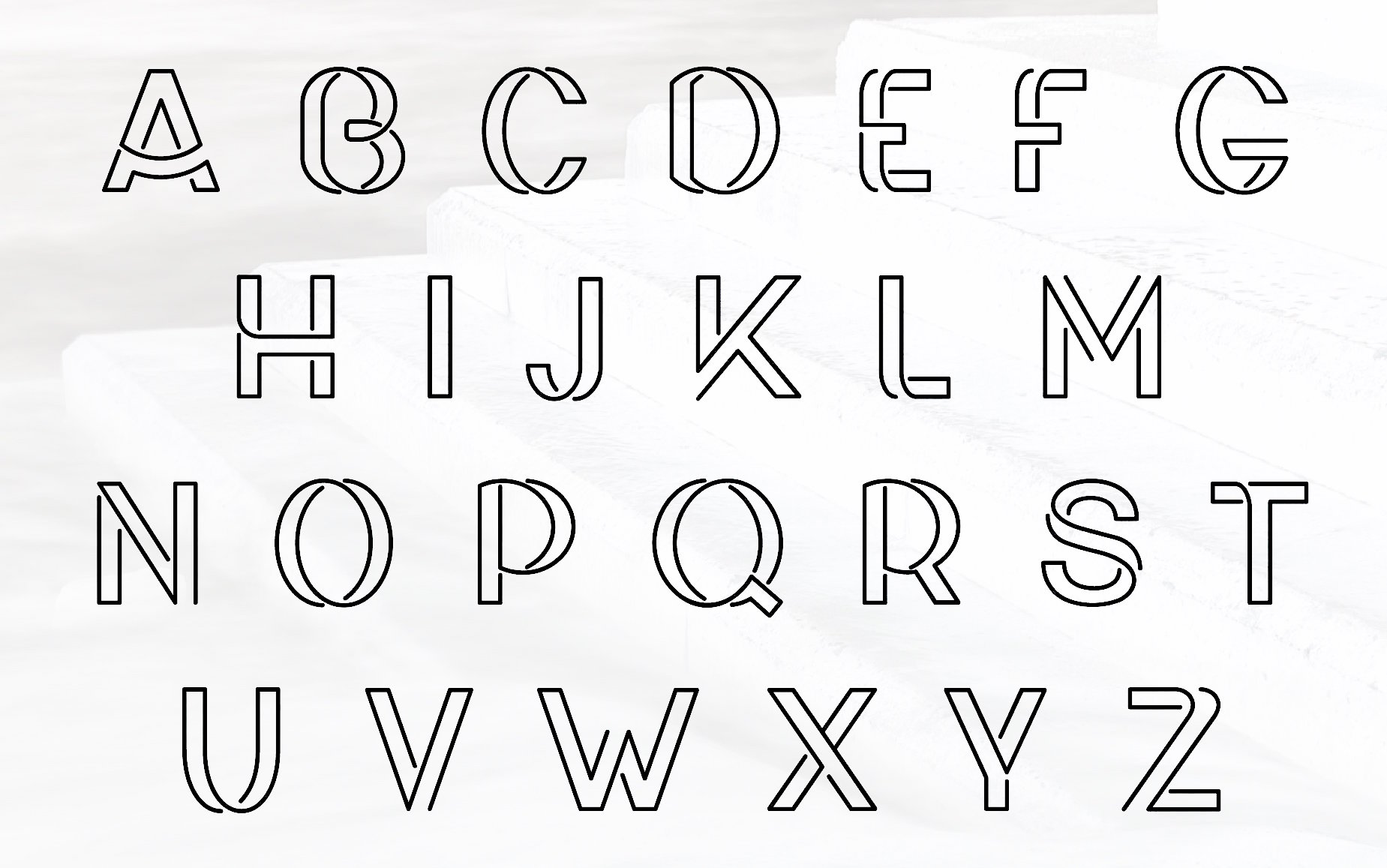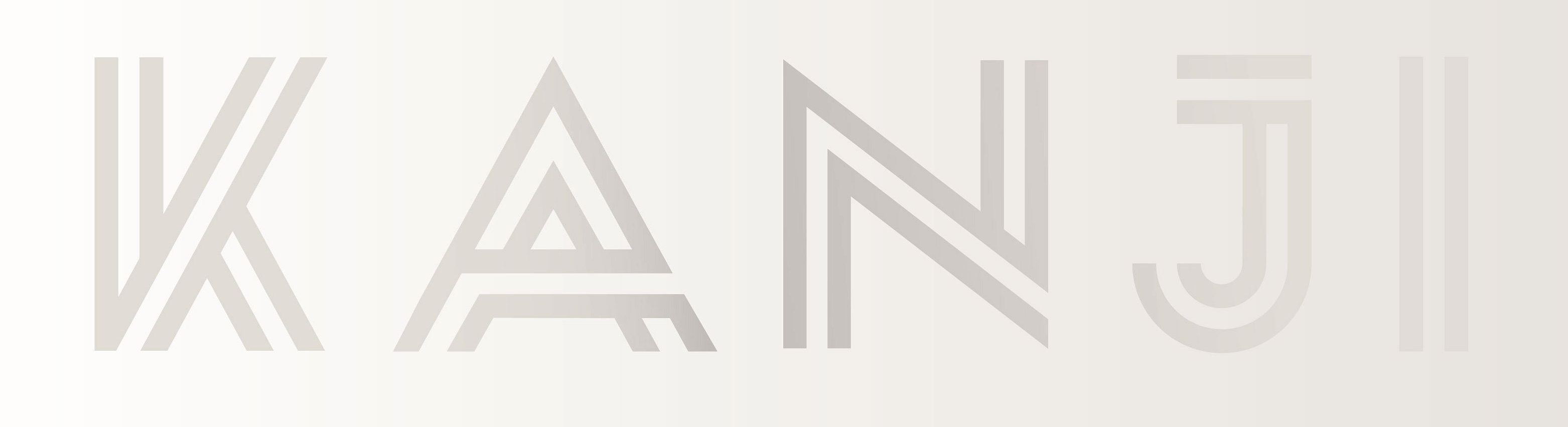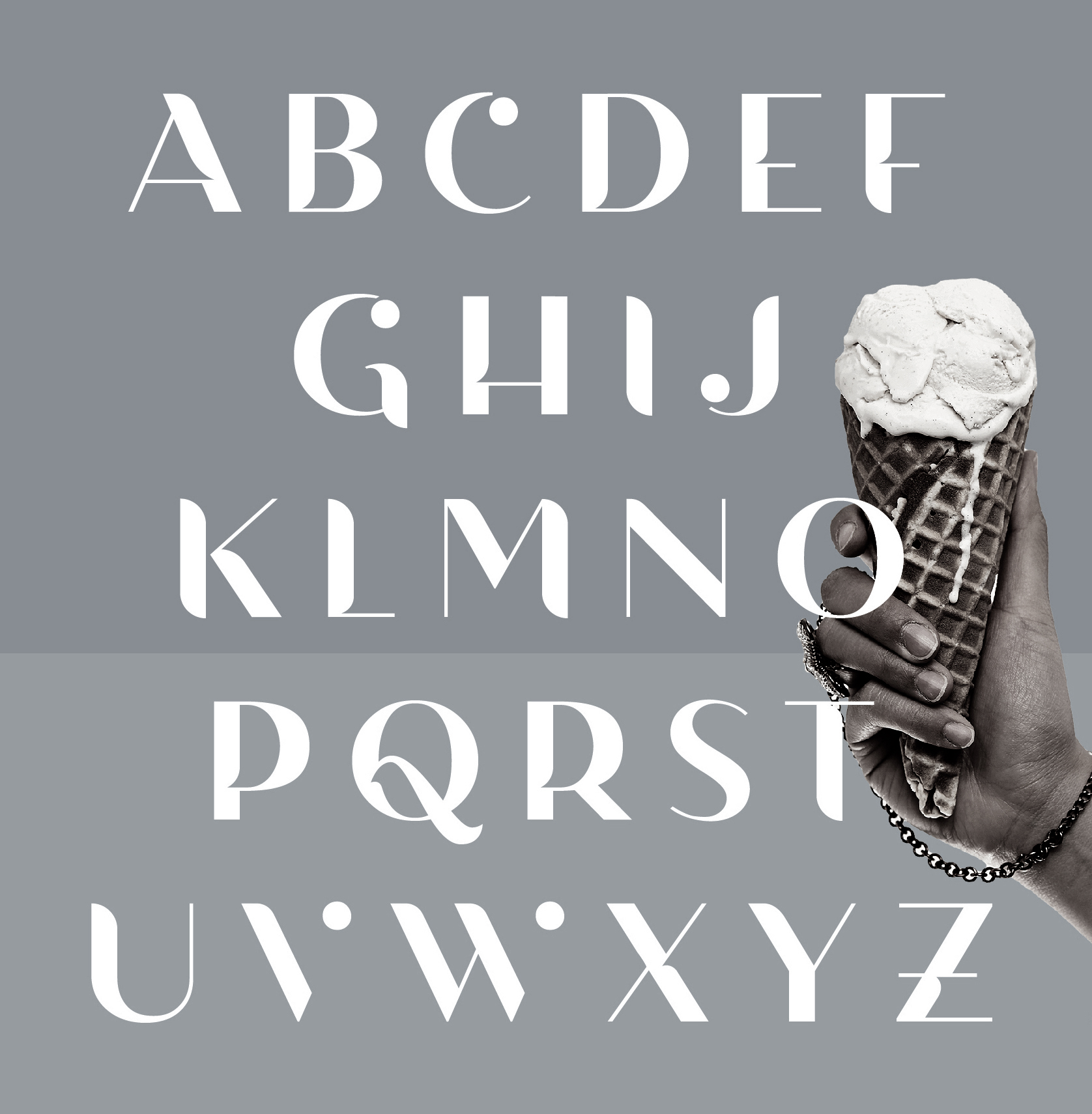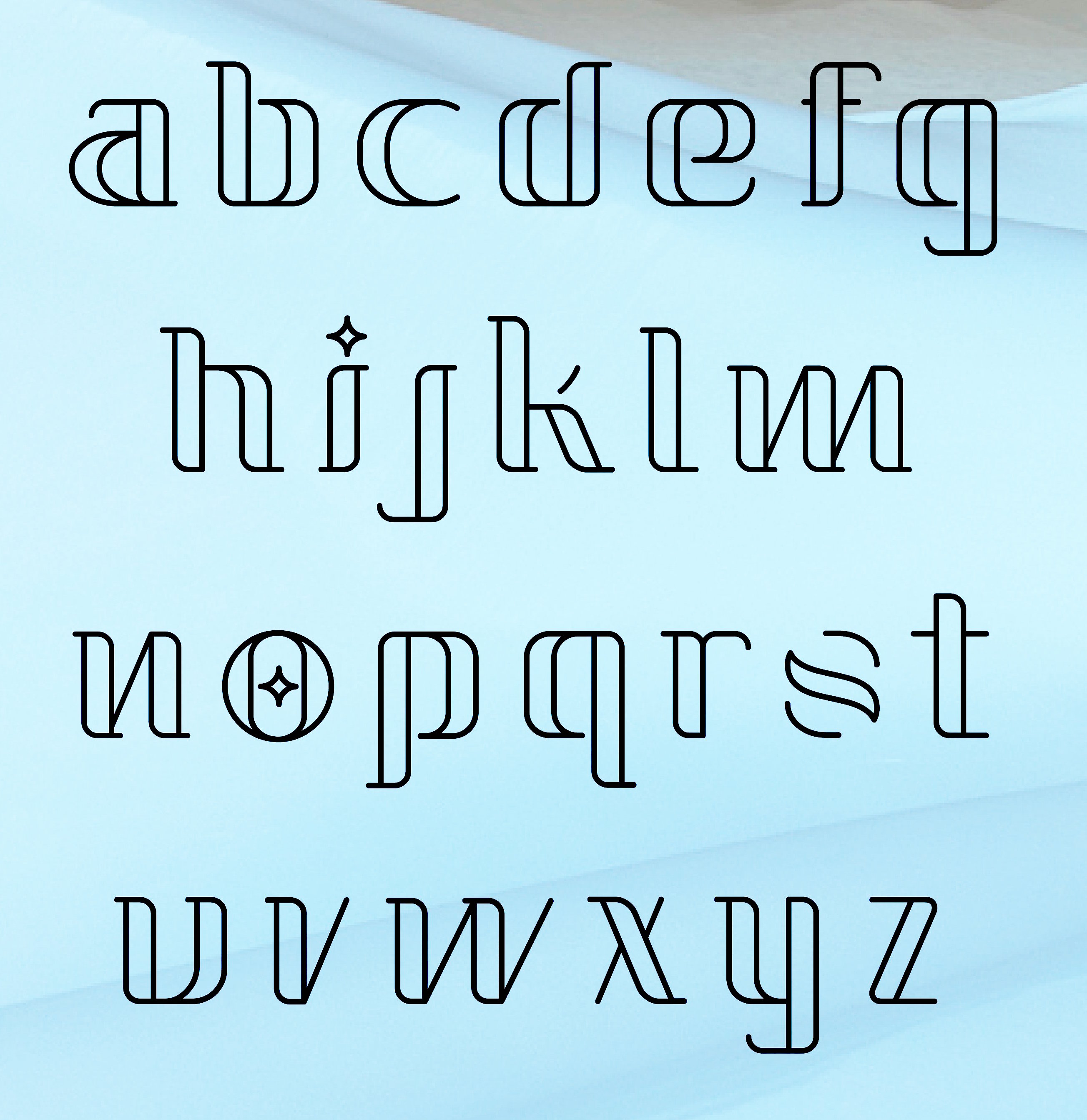
Pedro Azedo
Graphic designer in Alcanena and/or Terres Novas, Portugal, who created the free bilined caps typeface Kanji (2015), which was inspired by kanji. He also made the free avant garde sans low-center-of-gravity display typeface family Azedo (2015).
In 2016, he designed the free art deco typeface Tagus, the bilined and outlined Irene, the bilined titling typeface Kanji (which contains no kanji), and the free decorative Pole Numerals.
In 2017, he designed the informal typeface Phan, the Escher-inspired typeface Aclo, the children's book typeface Phan, and the blackboard bold font Quira.
In 2018, he published the Escher font Loophole and the soft poster typeface Gelato.